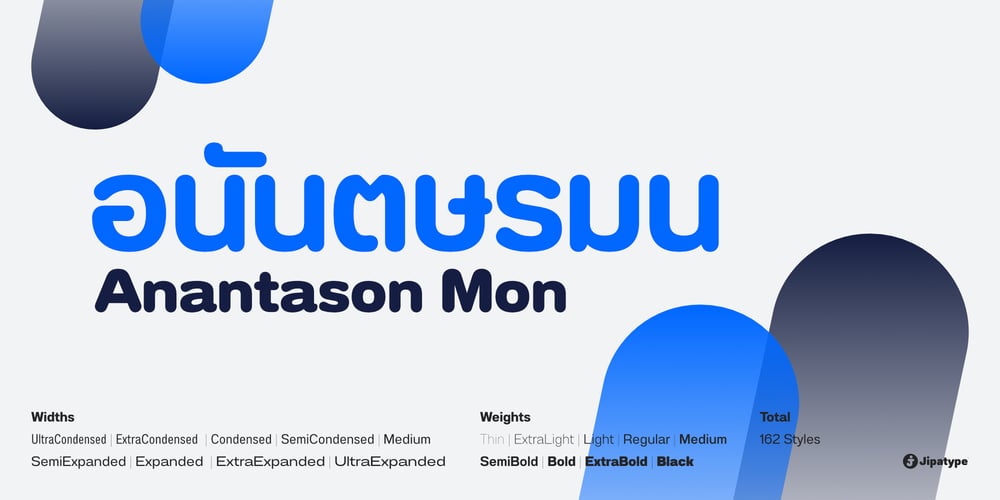
Anantason Mon
Anantason Mon font
Anantason Mon Font Family was designed by Anupap Jaichumnan and published by Jipatype. Anantason Mon contains 162 styles and family package options. Anantason Mon is a sans-serif font derived from the Anantason Reno typeface. It offers a wide range of styles, spanning from Thin to Black and from Ultra-Condensed to Ultra-Expanded, totaling 162 styles. It supports Latin-1 and Thai Unicode characters. Both Anantason Mon and Anantason Reno are versatile fonts suitable for creating various forms of publishing media, whether online or offline.